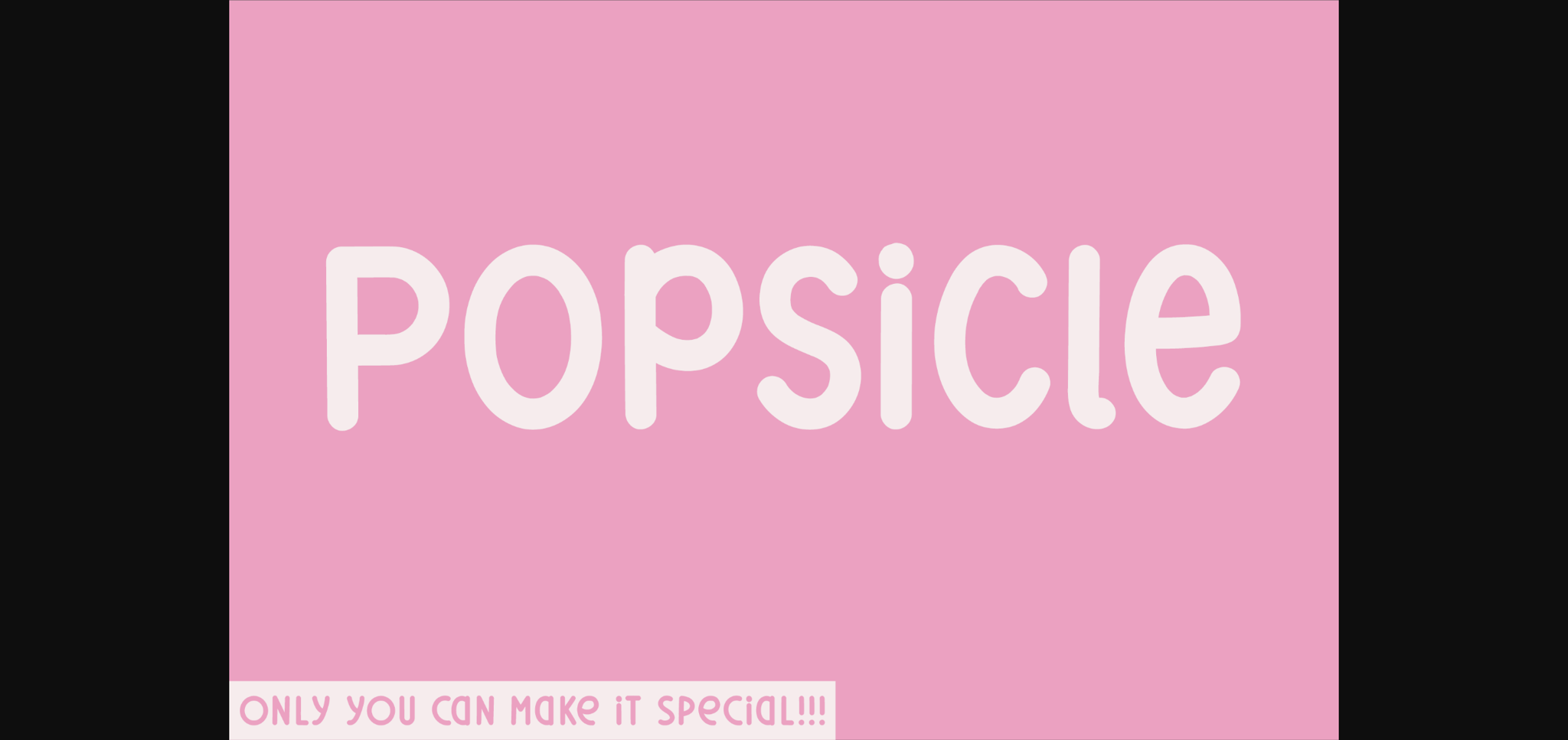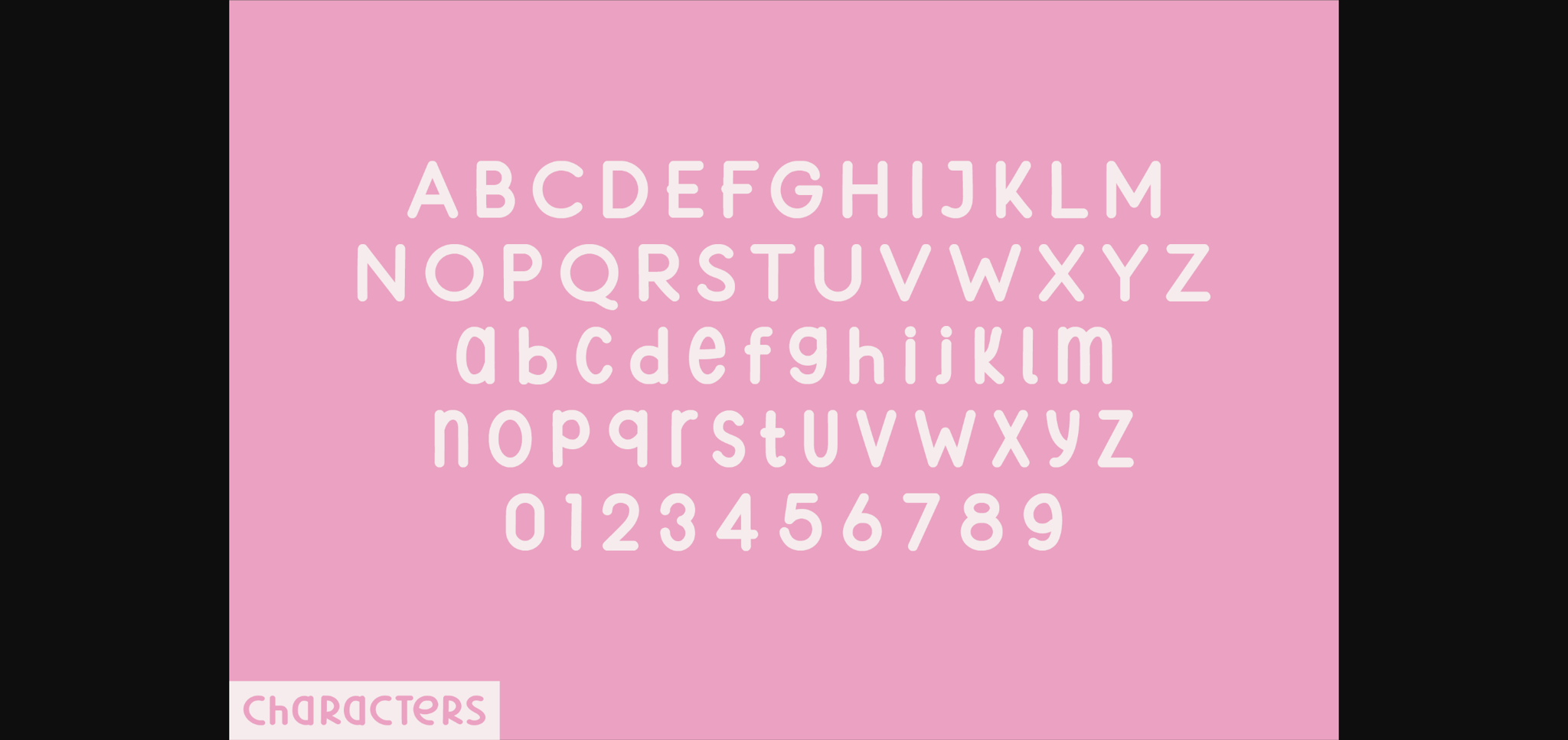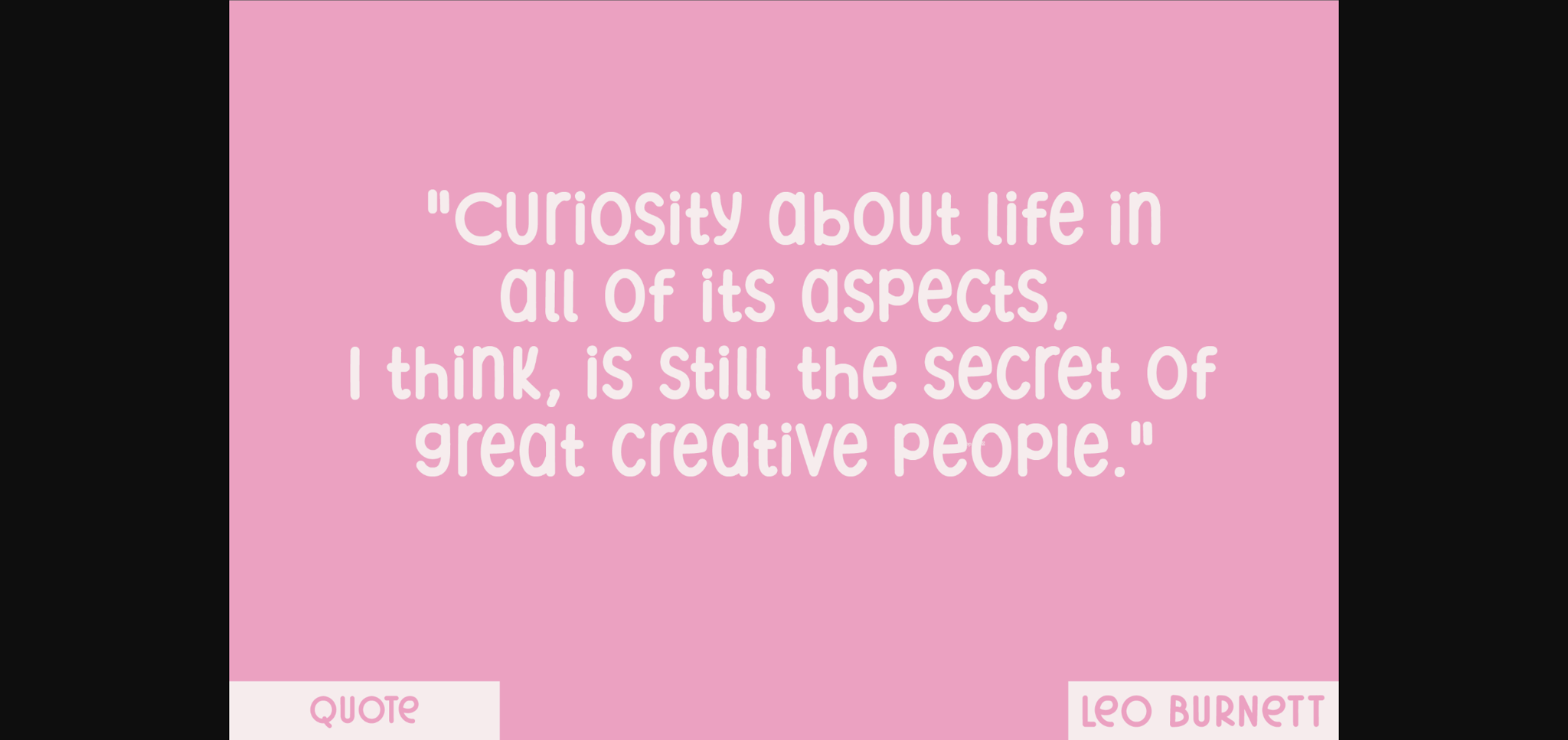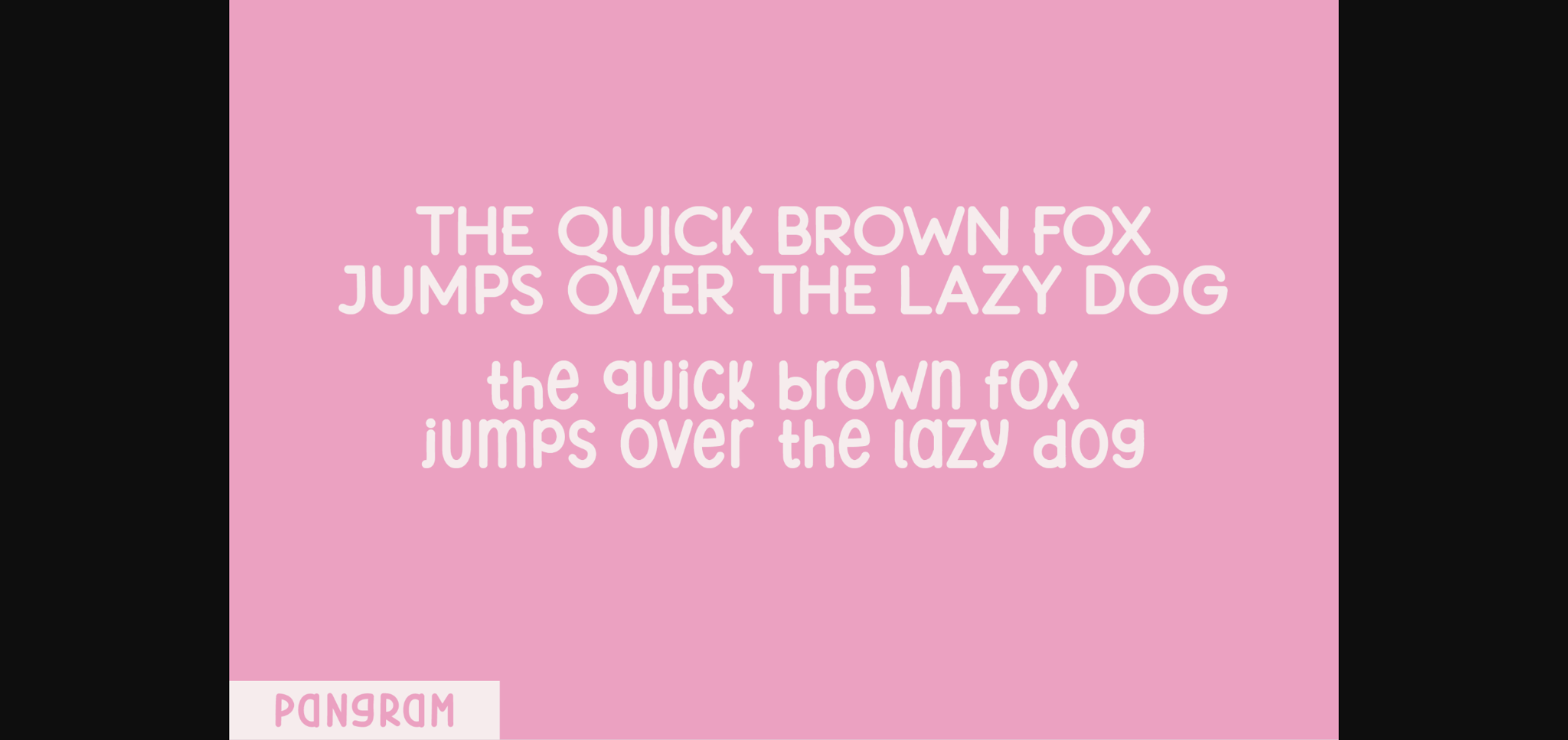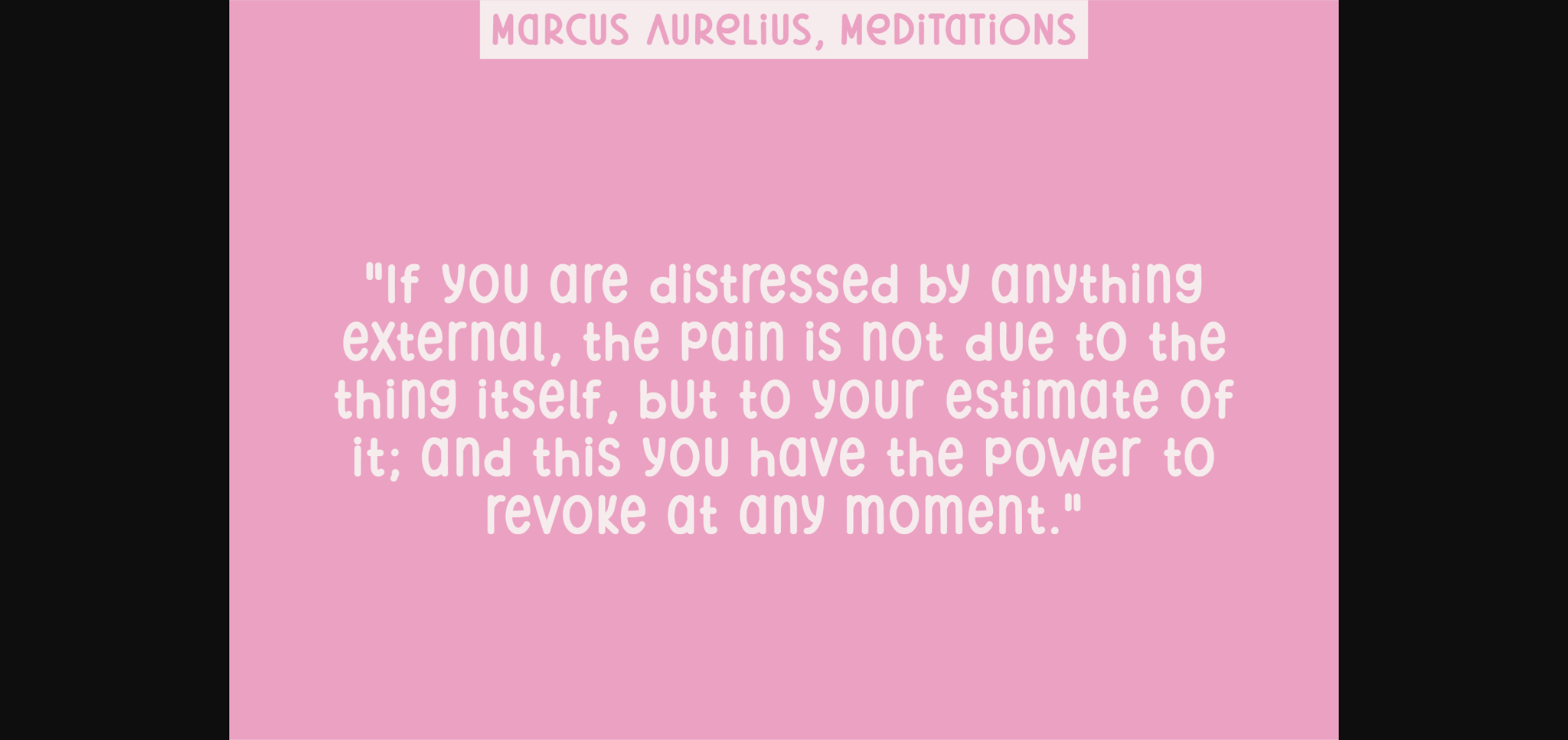
HomeSans Serif FontsPopsicle Font Sans Serif Fonts Popsicle Font FacebookXPinterestWhatsApp 1 of 7 ... Popsicle Font Poster 2... Popsicle Font Poster 3... Popsicle Font Poster 4... Popsicle Font Poster 5... Popsicle Font Poster 6... Popsicle Font Poster 7... About Popsicle Font Popsicle is a natural sans serif font created without changing a single node in each character’s indentation – this makes this font very interesting and unique. Perfect for quotes, notes, tees, and any product design. DOWNLOAD NOW People also explored Haystack Font Glosery Cielo Marlton Font Affiche Enternity Font Supermarket Font Positive Vibes Font Syakira Font 552 0 TagsPopsicle Font Previous articleCreamsicle FontNext articleTorrone Font LEAVE A REPLY Cancel reply Comment: Please enter your comment! Name:* Please enter your name here Email:* You have entered an incorrect email address! Please enter your email address here Website: Save my name, email, and website in this browser for the next time I comment. Personal Use Free Madison Script Personal Use Free Read more about this font Mallvirra Personal Use Free Read more about this font The Relapse Personal Use Free Read more about this font Token No 721 Personal Use Free Read more about this font BLOG Using Fonts in Digital Marketing: Tips to Strengthen Your Brand Identity In the realm of digital marketing, every visual element plays a crucial role in shaping a brand's identity, and fonts are no exception. The... Elegant Wedding Invitation Fonts – Handwritten & Script Fonts Top 10 Handwritten Fonts That Elevate Your Designs Free Fonts Risk: Why Free Fonts Can Be Dangerous for Designers